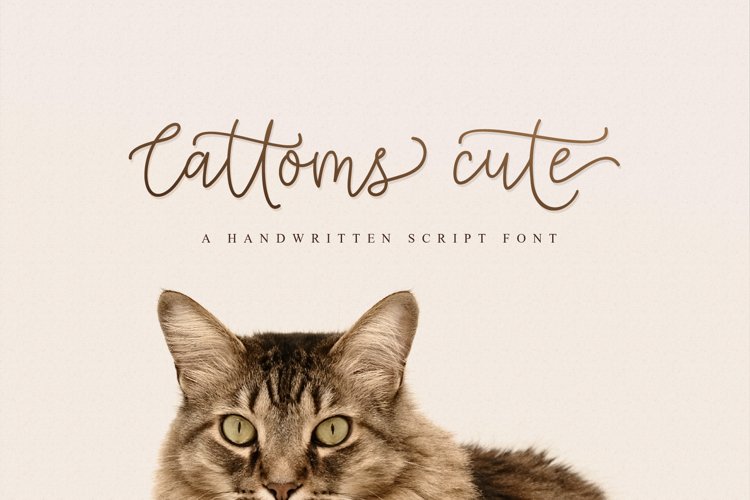
Cattoms Cute Script Fonts
Cattoms cute handmade font is for any typhography needed, designed to combine perfectly and allow you to create stunning hand-lettering quickly and easily. Ideal for logos, handwritten quotes, product packaging, header, poster, merchandise, social media & greeting cards, and more
Cattoms cute come with 627 glyphs. The alternative characters were divided into several Open Type features such as Swash, Stylistic Sets, Stylistic Alternates, Ligature. The Open Type features can be accessed by using Open Type programs such as Adobe Illustrator, Adobe InDesign, Adobe Photoshop, Corel Draw X version, And Microsoft Word. And this Font has given PUA unicode (specially coded fonts). so that all the alternate characters can easily be accessed in full by a craftsman or designer.If you don't have a program that supports OpenType features such as Adobe Illustrator and CorelDraw X Versions, you can access all the alternate glyphs using Font Book (Mac) or Character Map Windows).